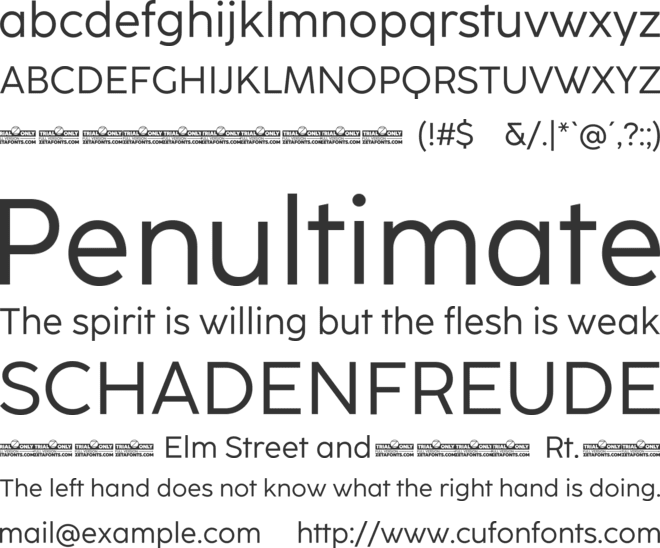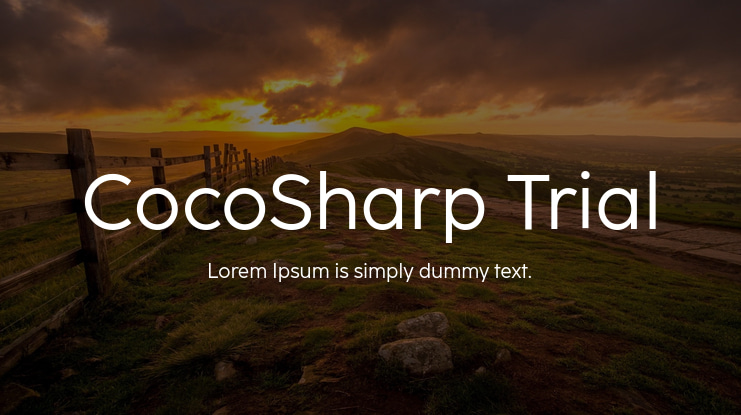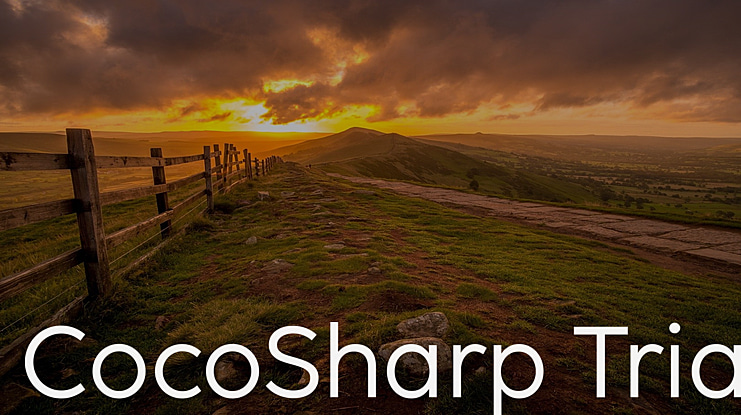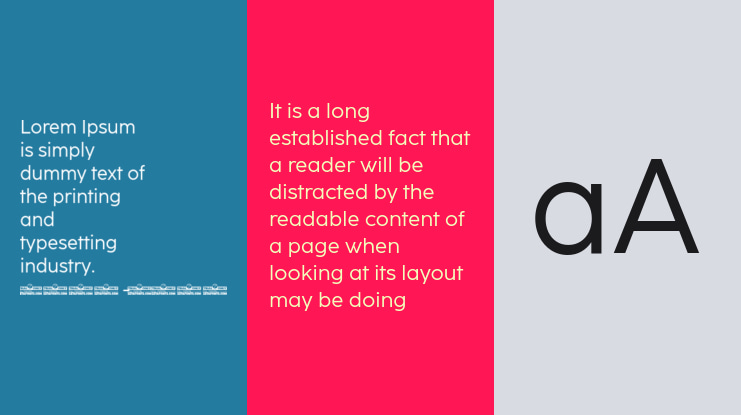
--- Coco Sharp is the newest evolution of the Coco typographic project, developed since 2013 by Cosimo Lorenzo Pancini for the foundry Zetafonts, with the help of Francesco Canovaro and Andrea Tartarelli. Influenced by vernacular grotesques sign-painting and modernist ideals, and inspired by the classy aesthetic of fashion icon Coco Chanel, Coco is drawn on a classic geometric sans skeleton but applies humanist proportions and visual corrections to key letters with the aim to create a warmer, subtly vintage texture on the page and on the screen.
Coco Sharp drops the rounded corners of previous incarnations (Coco Gothic and Cocogoose) to pair the typeface display and logo capability with a sharper definition for text use. As in the other Coco families, a wide range of alternate letterforms allows to express different historical moods, including elegant, quirky and unexpected designs able to transform a simple word in a memorable wordmark. ย ย ย More...
The other peculiarity of Coco Sharp lies in the wide choice of x-heights given to the user, both by providing a variable version and five graded sub-families, that allows designers to fine-control text readability and space usage. Large and Xlarge versions provide big and easily readable lowercase letters, perfect for small point size typesetting or bold copywriting; Small and Xsmall provide smaller lowercase letters with the elegant proportions of Futura and its modernist eponyms, optimised for display use or for adding a classy flare to body text; the Regular x-height offers a "one size fits all" solution that works both for texts and for display use.
Alle the 60 weights of Coco Sharp come with a full set of open type features allowing faultless typesetting thanks to small capitals, positional numbers & case sensitive forms. Use Coco Sharp out of the box as a solid workhorse family or enjoy discovering the limitless possibilities of its 2000+ latin, cyrillic and greek glyphs covering over 200 languages worldwide.